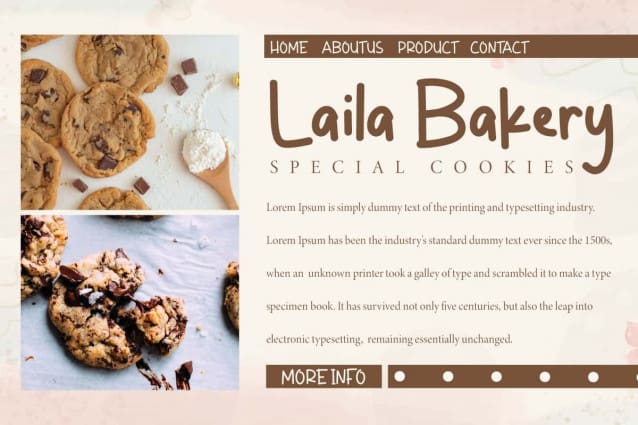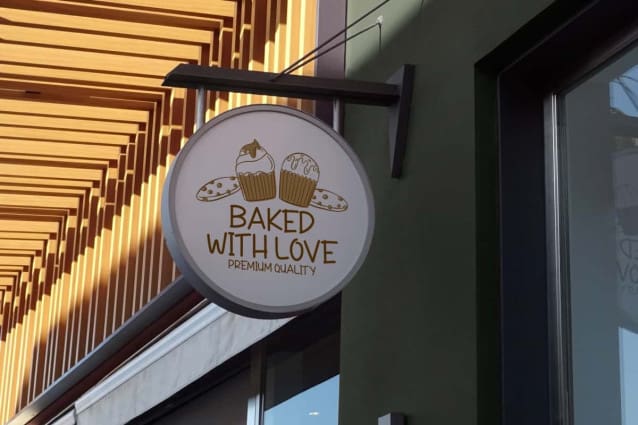
Cake Fantasy Font is a sweet display font with a swoosh that will add a personal touch to anything. It’s a handwritten original in the style of a marker. This cute font provides everything you need for comprehensive and cohesive design work, it will be perfect for blogs, book covers, brochure, company signs, headers, labels, logos, quotes, titles, website and more.
Cake Fantasy Font is a casual display font with a handwriting style that is here to create the cutest and most beautiful letter designs with added graphic embellishments. The font will be suitable for bakery, baking class, cafeteria, confectioner, graphic design, handicraft, photography, restaurant, sweet food manufacturer and others.
Cake Fantasy Font comes with a complete set of Uppercase and Lowercase Basic Characters, Numbers, a large range of Punctuation, Symbols and Swoosh. It is supported with multilingual characters and ready to use both on Windows machine or Mac with simple installations. It’s tested to work well in the Adobe Apps (Illustrator, Adobe InDesign, Adobe Photoshop) CorelDraw, and others. PUA Encode Characters means you can access all the characters easily – Fully accessible without additional design software.